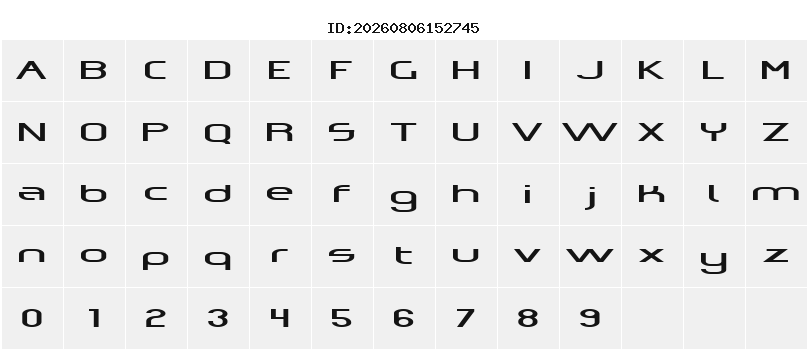
• Font Name: Omicron Zeta Pressed
• Full Font Name: Omicron Zeta Pressed
About Omicron Zeta Pressed.ttf
Omicron Zeta Pressed.ttf is a modern, elegant sans-serif font designed for ultimate readability and visual harmony. Perfect for branding, headlines, web design, and print materials.